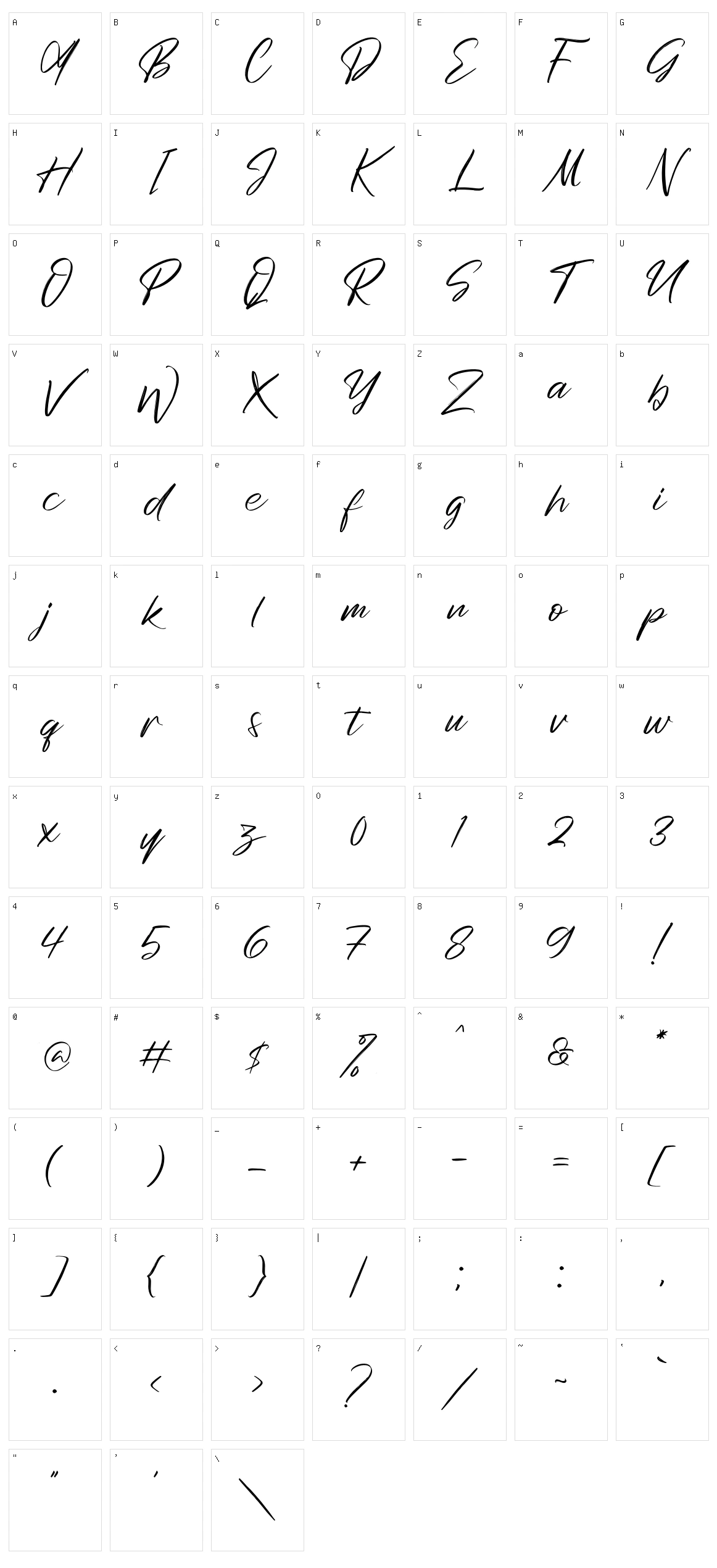
The free font Denjuroo Kanthe is carefully designed by Integritype Studio, showcasing a thoughtful balance of creativity and usability and falls under the Script font style. When you download the ZIP file, it contains only 67.99 KB of font files, making it lightweight and quick to download. Please review the license details below to understand permitted usage and distribution rights. If license information is not available, we recommend using this font for personal projects only or contacting the author directly for commercial usage permissions.